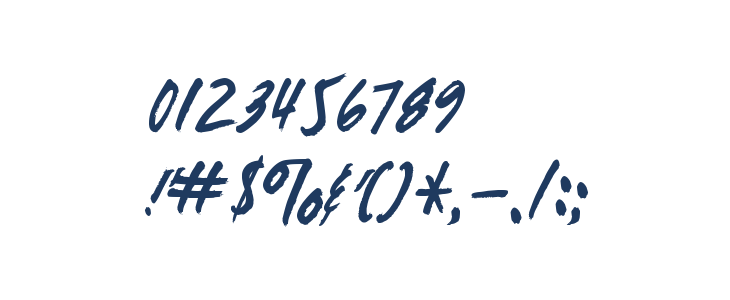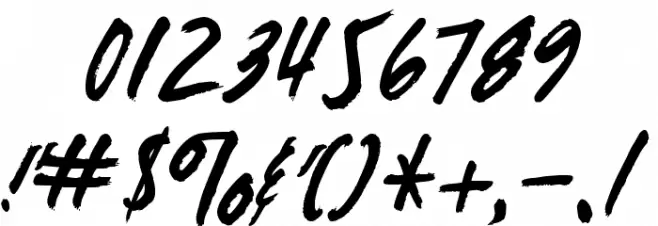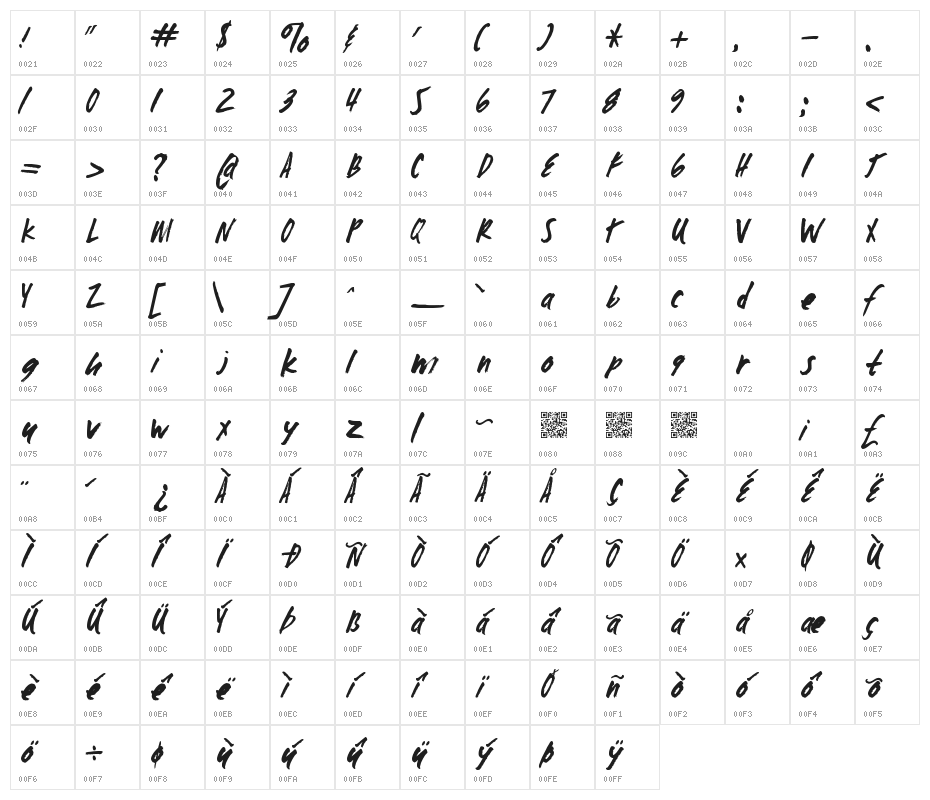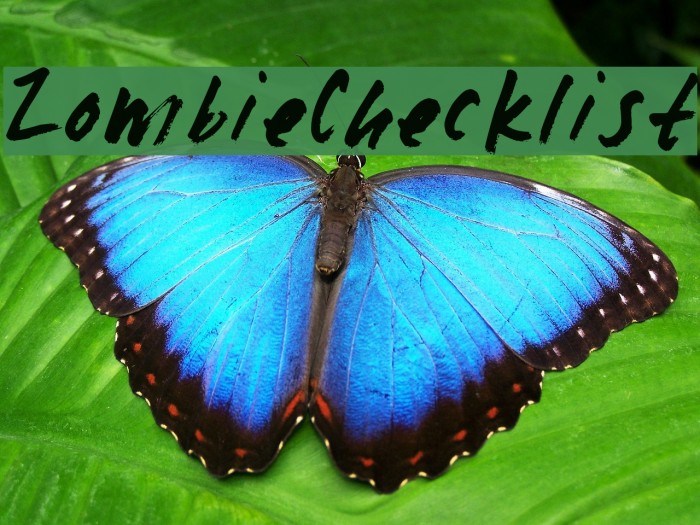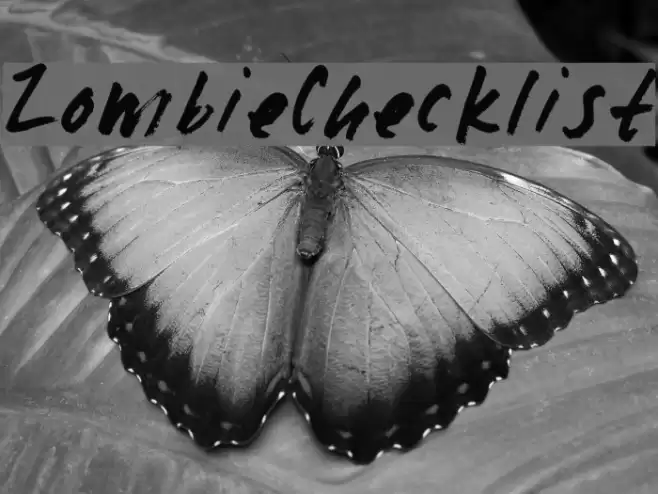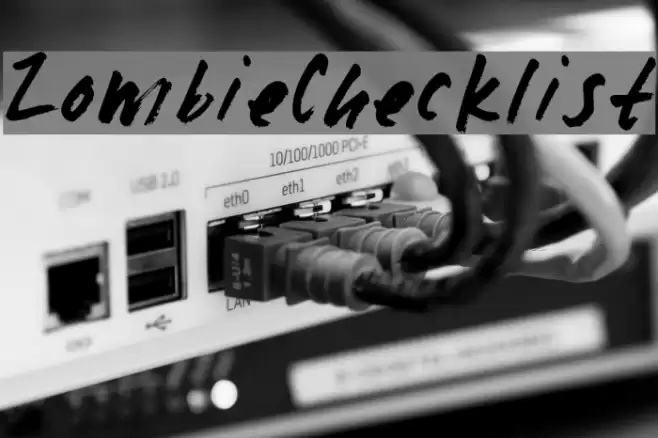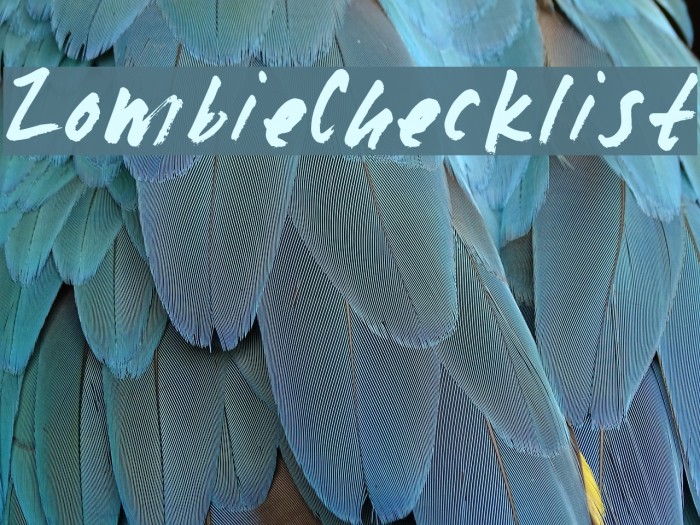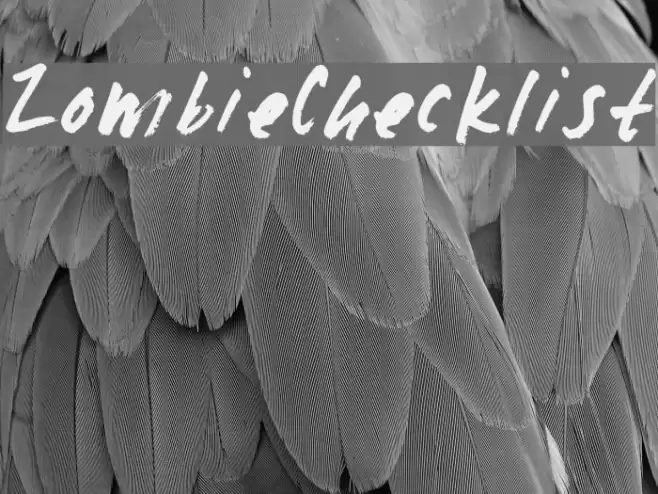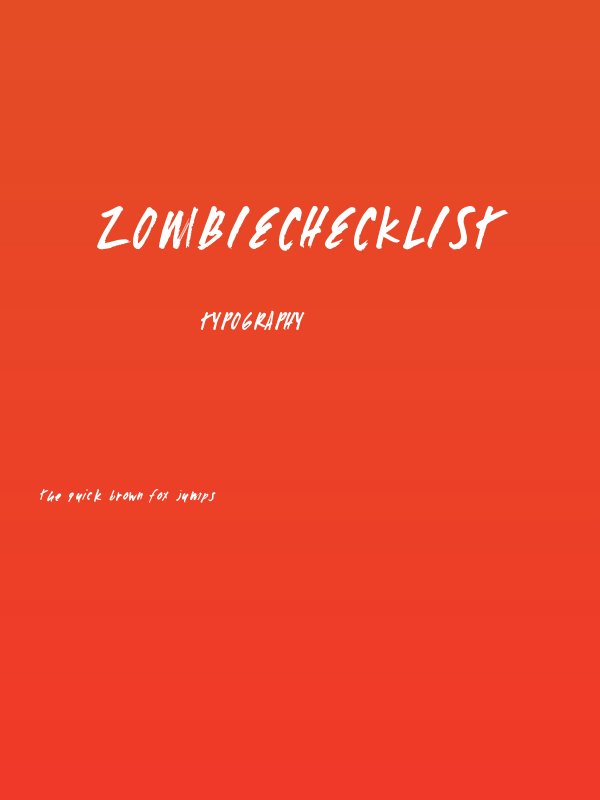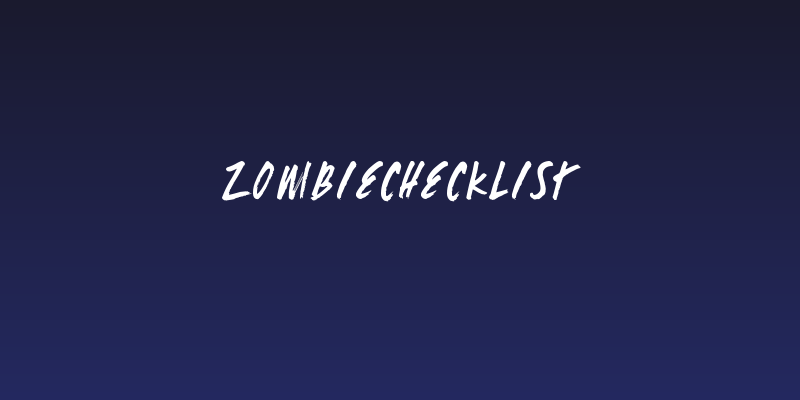
ZombieChecklist Font
ZombieChecklist Description
This font features a bold, expressive style with a hand-painted appearance. The letters are dynamic and slightly irregular, giving a sense of movement and energy. The strokes are thick and textured, resembling brush strokes with a rough edge. This adds a raw, artistic feel to the font, making it stand out in any design. The uppercase and lowercase letters maintain a consistent style, while the numerals and special characters complement the overall aesthetic. The font's unique character is perfect for projects that require a bold and creative touch.
| Proposed Projects | Ideal for posters, album covers, branding, and any creative projects that need a bold, artistic touch. |